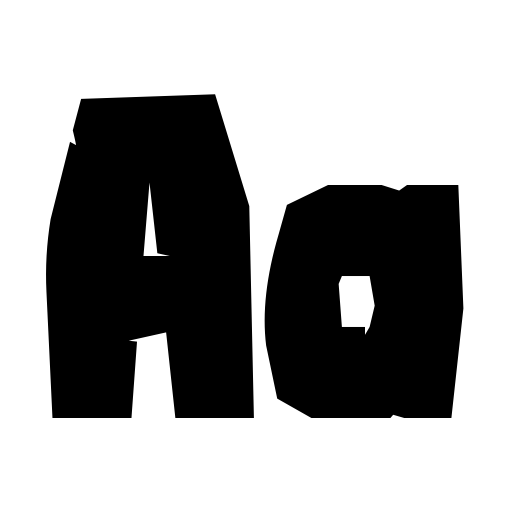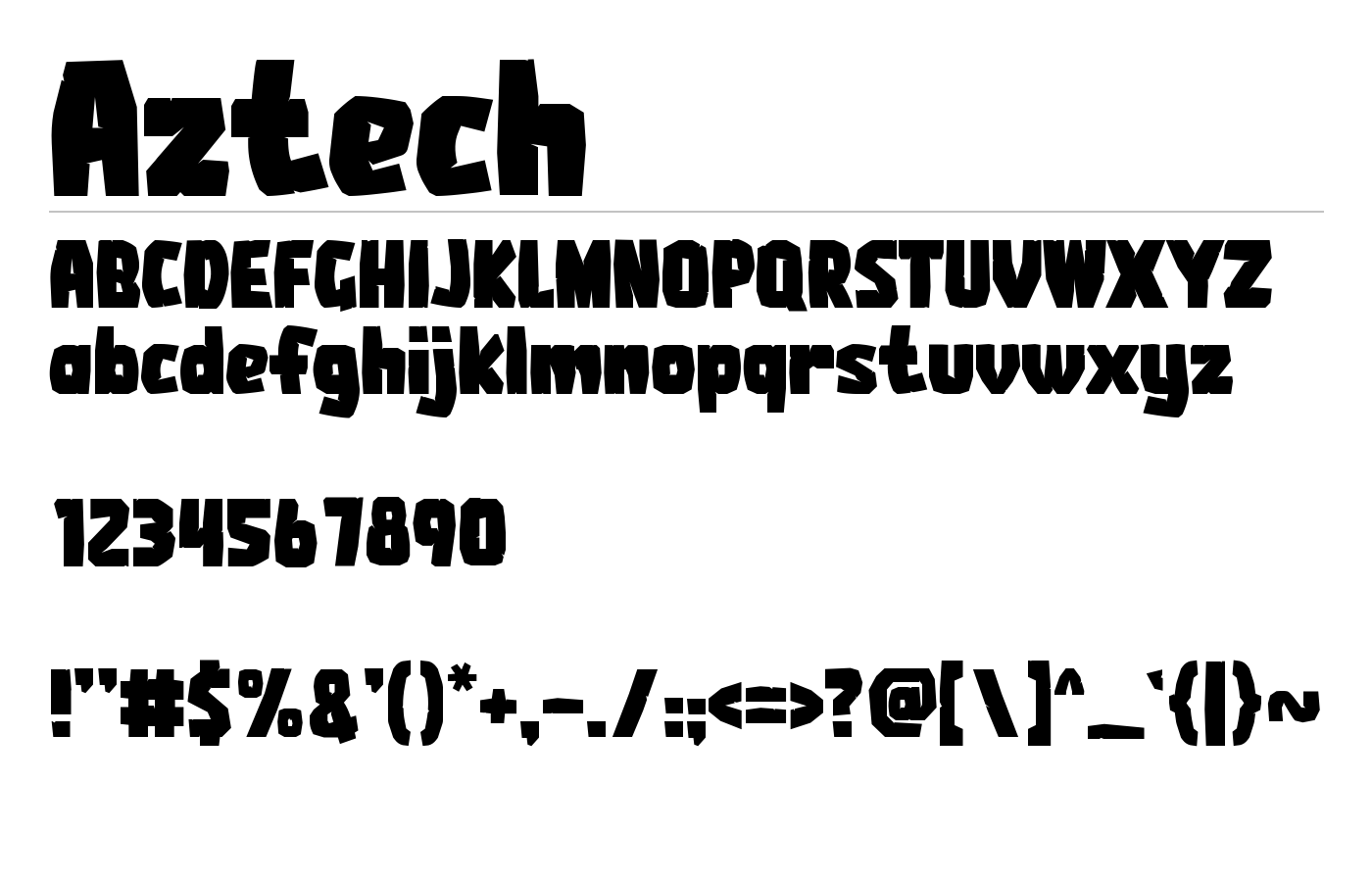
Aztech is a bold, chunky display font with a strong, geometric style that evokes a tribal or primitive art feel. Its uneven, blocky letterforms create a dynamic and playful personality, making it ideal for eye-catching headlines, posters, and branding that seeks an adventurous or handcrafted look. This font works well when you want to add a touch of uniqueness and energy to designs, especially in creative, cultural, or entertainment contexts.
Aztech Font
About Aztech Font
| Font family | Aztech Font |
| Designer | MODESTYPE TEAM |